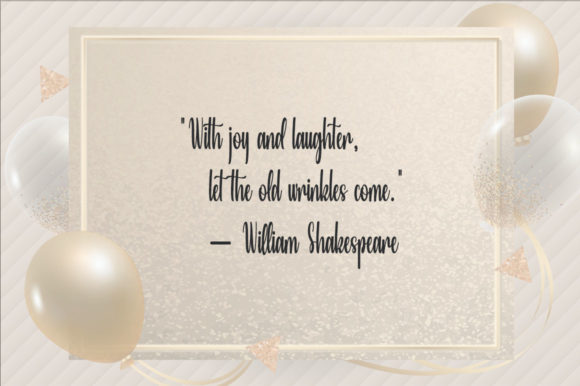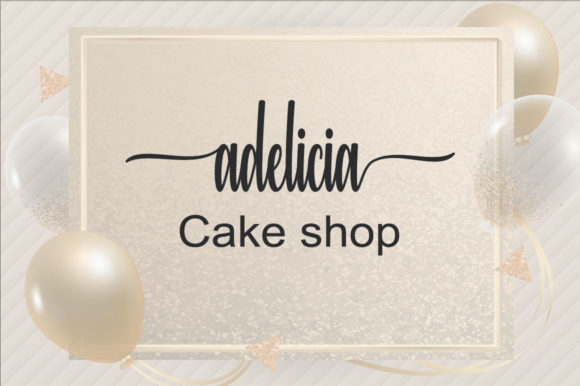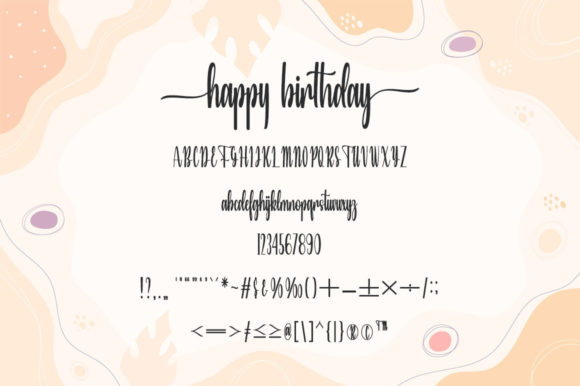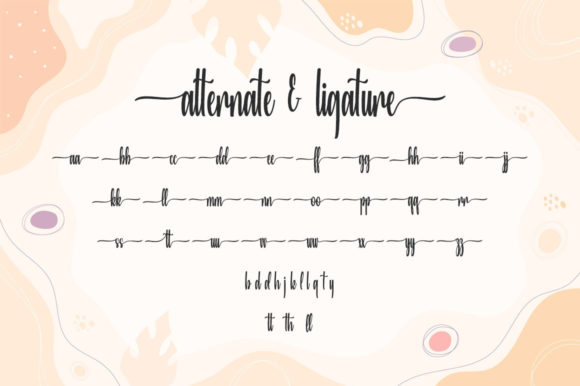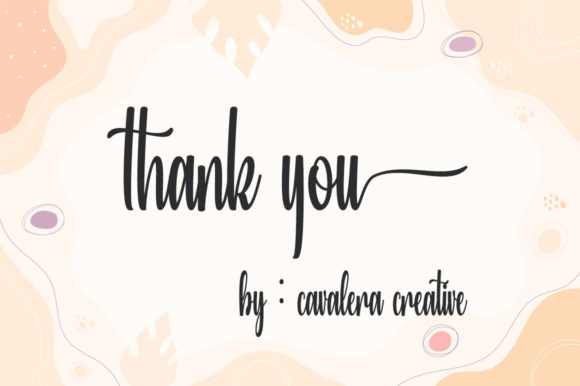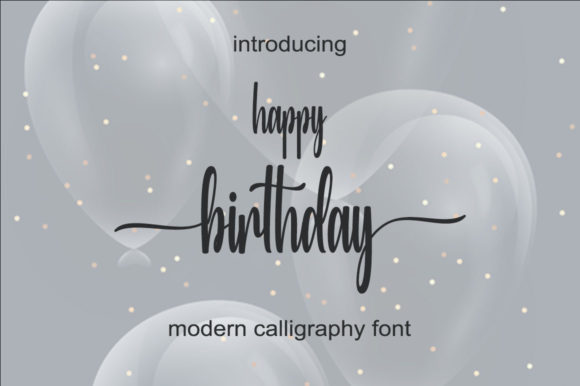
Introducing Happy Birthday Font: The Perfect Addition to Your Design Arsenal
Are you on the hunt for a font that can add a touch of elegance and whimsy to your designs? Look no further than the Happy Birthday font! This enchanting handwritten font is perfect for a wide range of applications, from greeting cards to headlines, and is sure to become a staple in your design collection.
What Makes Happy Birthday Font So Special?
The Happy Birthday font is a versatile script font that boasts a wide spectrum of applications. Its unique, handwritten style makes it perfect for adding a personal touch to any design project. Whether you’re creating a greeting card, invitation, or social media graphic, this font is sure to make your design stand out.
One of the standout features of the Happy Birthday font is its PUA (Private Use Area) encoding. This means that you can access all of the glyphs and swashes with ease, giving you complete creative control over your design. With PUA encoding, you can easily insert special characters, ligatures, and other flourishes to add an extra layer of depth and interest to your design.
Applications for Happy Birthday Font
The Happy Birthday font is incredibly versatile, making it perfect for a wide range of design applications. Here are just a few ideas to get you started:
- Greeting Cards: Add a personal touch to your greeting cards with the Happy Birthday font. Perfect for birthdays, weddings, and other special occasions.
- Headlines: Make your headlines stand out with the Happy Birthday font. Its unique style is sure to grab attention and add a touch of elegance to your design.
- Invitations: Create beautiful, one-of-a-kind invitations with the Happy Birthday font. Perfect for parties, weddings, and other special events.
- Social Media Graphics: Add a touch of personality to your social media graphics with the Happy Birthday font. Perfect for creating engaging and shareable content.
- Crafting: The Happy Birthday font is also perfect for crafters! Use it to create beautiful journal entries, scrapbook pages, and other handmade projects.
Why Designers and Crafters Love Happy Birthday Font
So, why do designers and crafters love the Happy Birthday font? Here are just a few reasons:
- Unique Style: The Happy Birthday font boasts a unique, handwritten style that adds a touch of elegance and whimsy to any design.
- Versatility: This font is incredibly versatile, making it perfect for a wide range of design applications.
- Easy to Use: With PUA encoding, accessing glyphs and swashes is easy! Simply insert the characters you need to add an extra layer of depth and interest to your design.
- High-Quality: The Happy Birthday font is a high-quality font that is designed to deliver exceptional results.
In conclusion, the Happy Birthday font is an enchanting handwritten font that is perfect for designers and crafters alike. Its unique style, versatility, and ease of use make it an excellent addition to any design arsenal. Whether you’re creating greeting cards, headlines, or social media graphics, this font is sure to make your design stand out. So why wait? Download the Happy Birthday font today and start adding a touch of elegance and whimsy to your designs!
- Enchanting handwritten font
- Versatile script font with a wide spectrum of applications
- Perfect for greeting cards, headlines, invitations, social media graphics, and crafting
- Unique style adds a touch of elegance and whimsy to any design